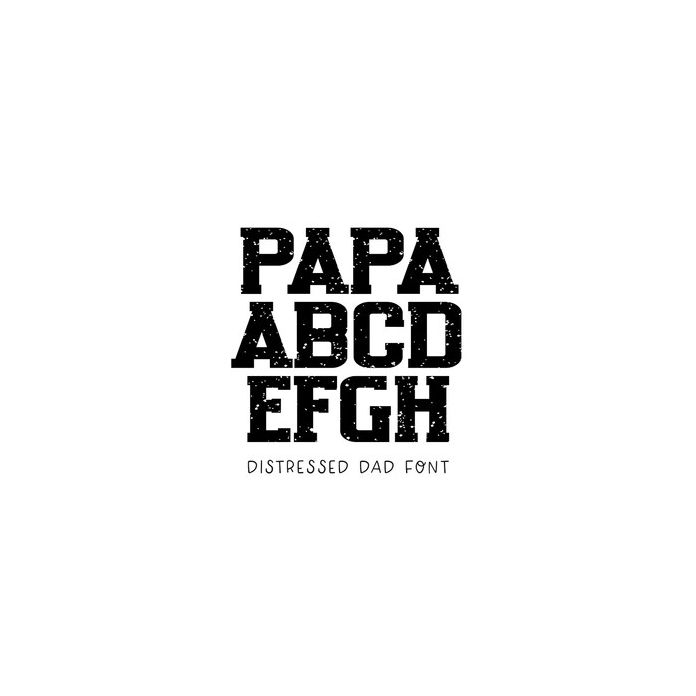
BFC Papa Distressed Dad Father's Day Sporty Font
Papa is a sporty and distressed masculine font for Father's Day. This is a wide version of our font "Game".